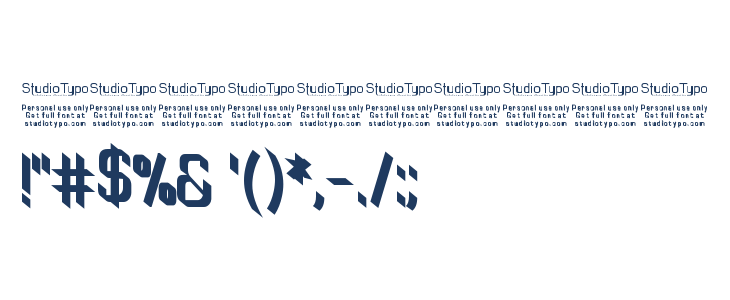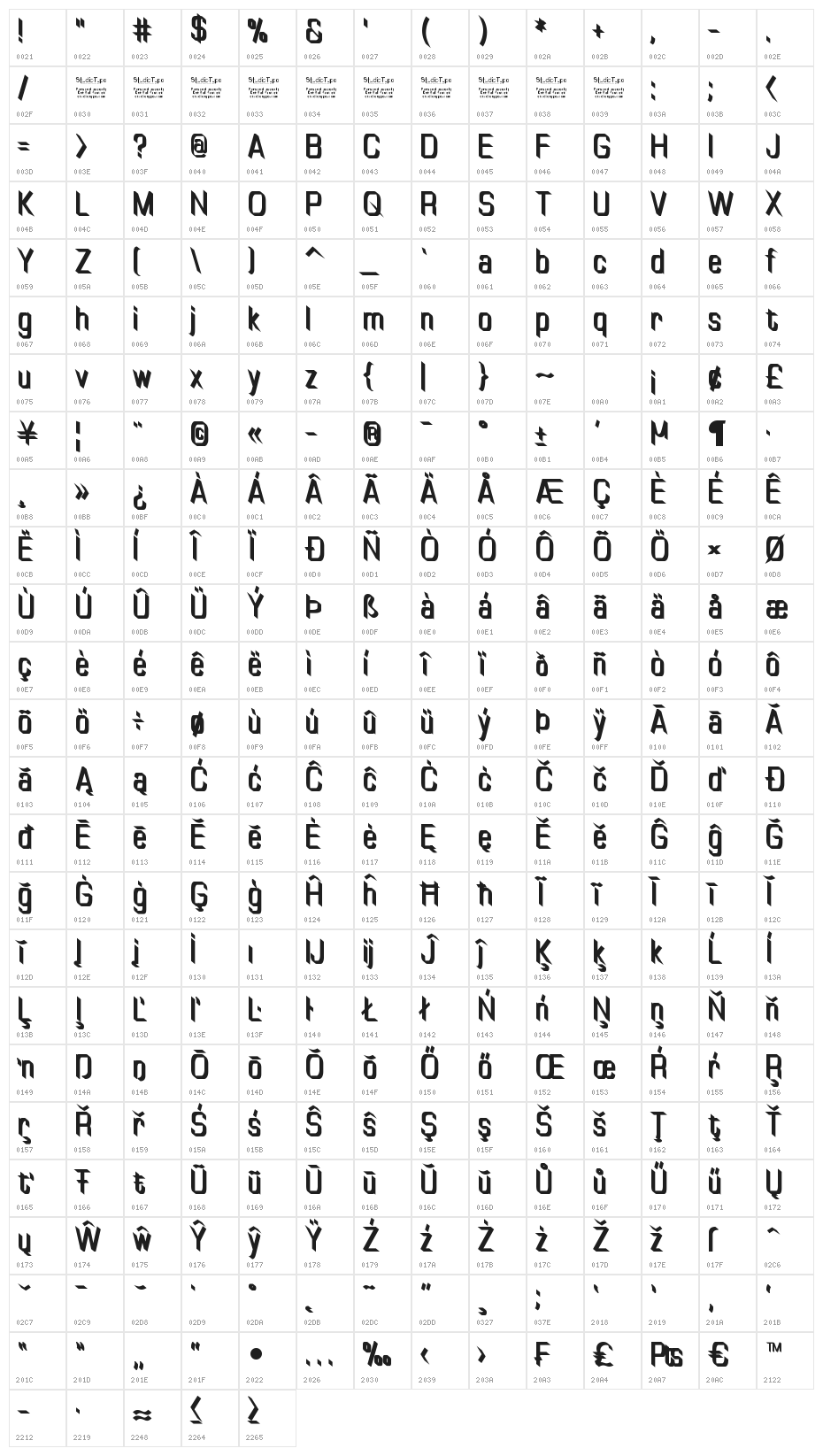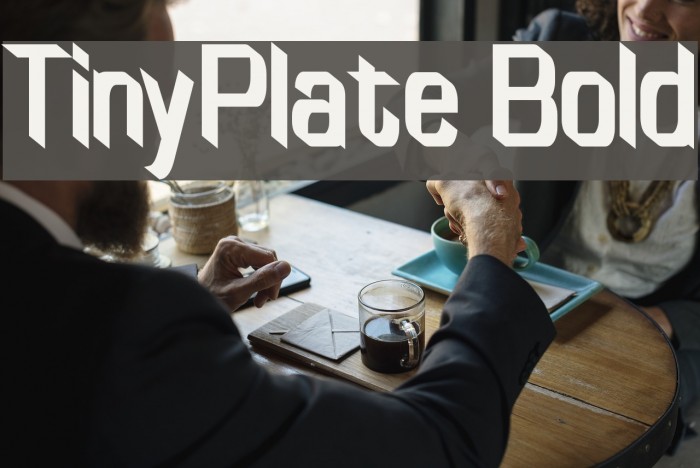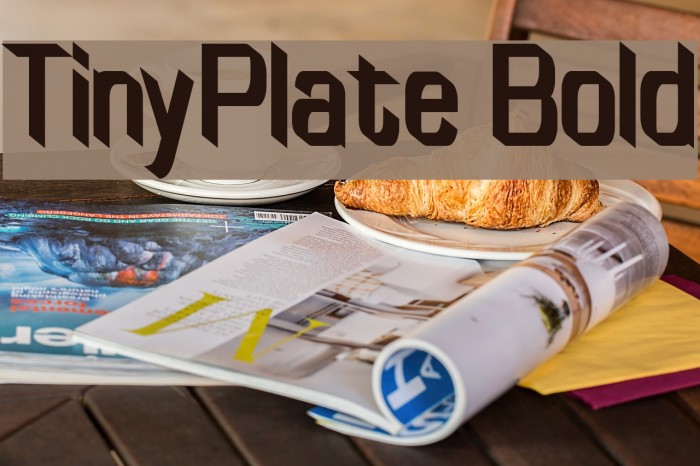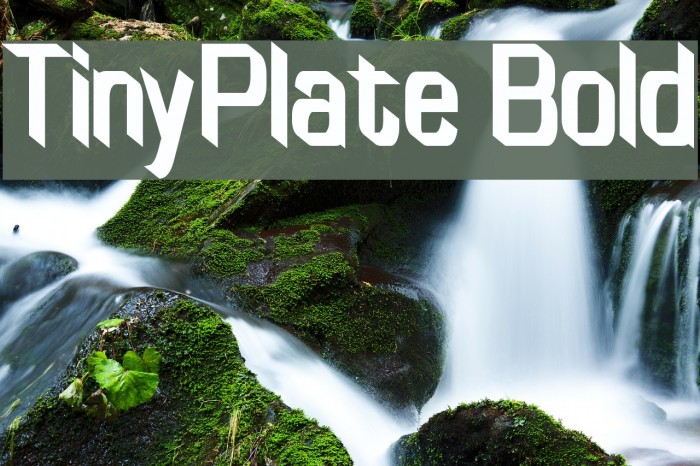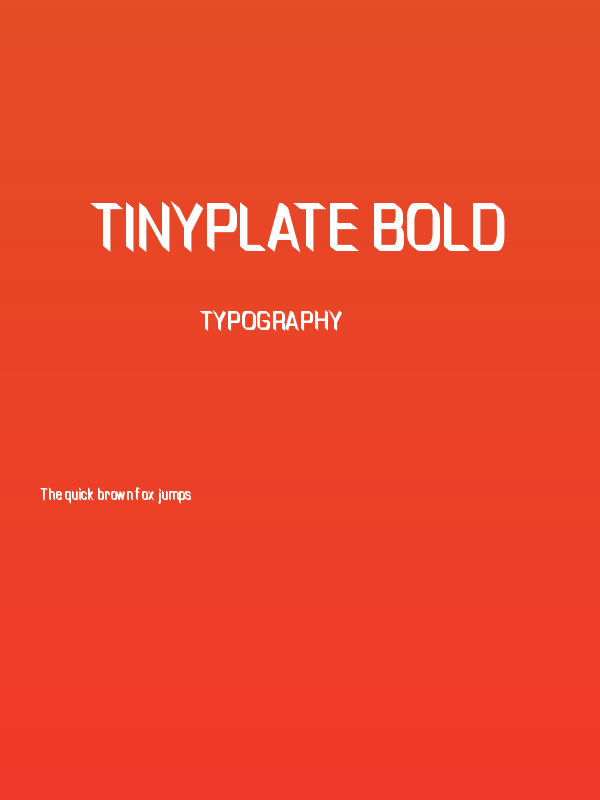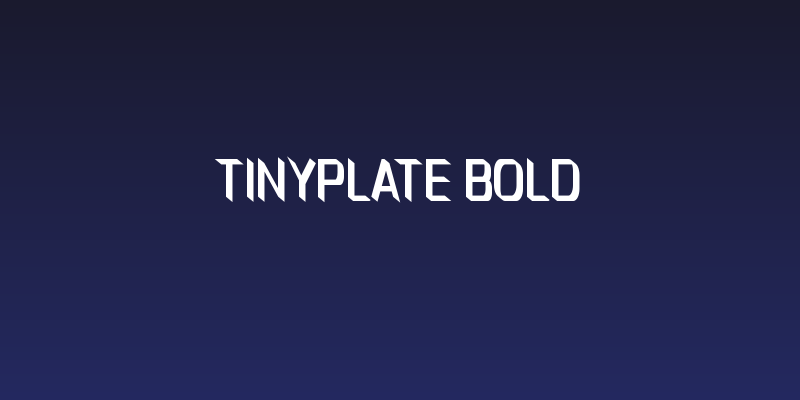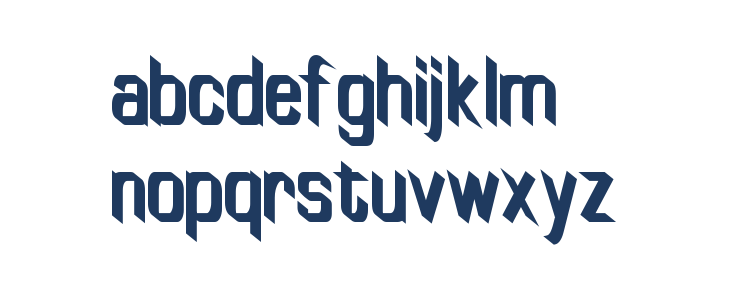
TinyPlate Bold Font
TinyPlate Bold Description
This font features a bold and striking design with sharp, angular edges and a geometric structure. The uppercase letters are particularly prominent, showcasing a modern and edgy aesthetic. The lowercase letters maintain the same angular style, ensuring consistency throughout the typeface. The numbers and special characters are designed to match the boldness and geometric nature of the alphabet, making them stand out. This font is ideal for projects that require a strong visual impact, such as posters, headlines, and branding materials.
| Proposed Projects | Ideal for posters, headlines, branding, and any project requiring a strong visual impact. |